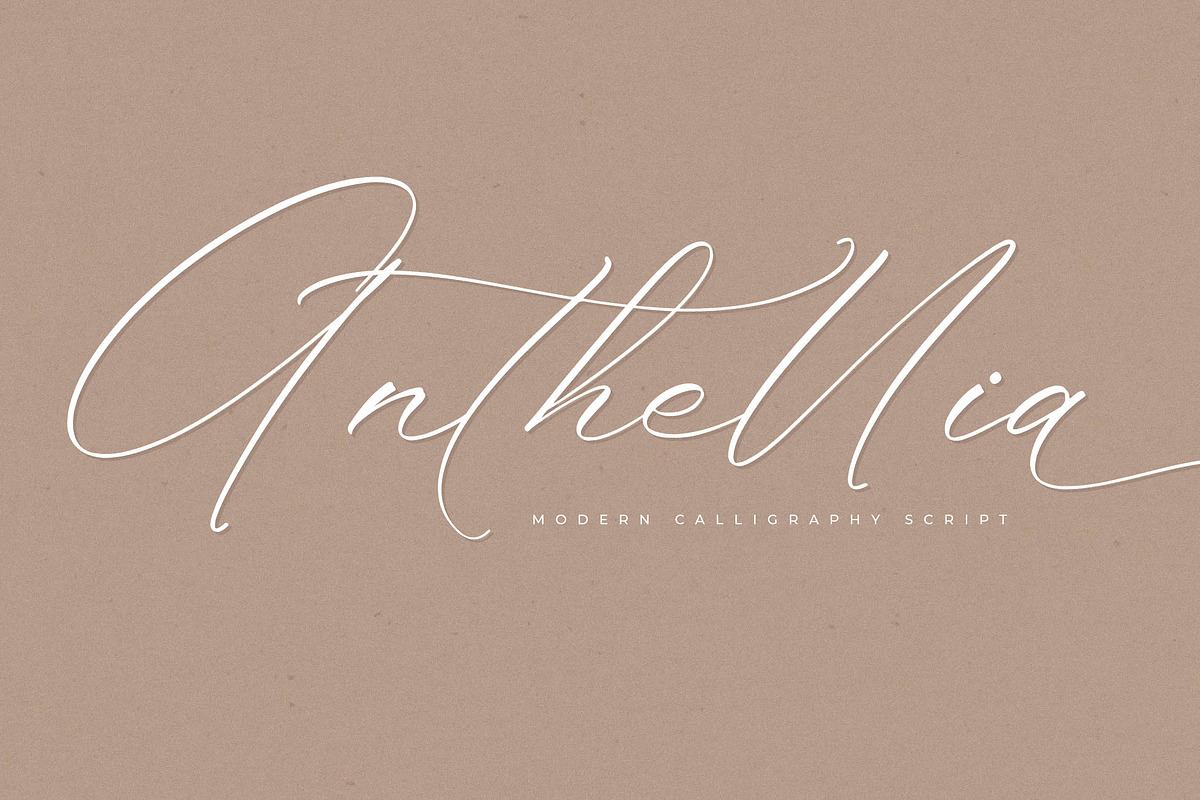
Anthellia Modern Calligraphy Script Font Free Download is a beautifully crafted typeface that combines elegant calligraphy with a fresh, contemporary flair. With its flowing lines, stylish swashes, and graceful letterforms, this font is perfect for wedding invitations, logos, branding, social media graphics, and any project that requires a refined, sophisticated touch.
Whether you’re creating romantic stationery, designing a chic logo, or crafting high-end branding, Anthellia brings timeless beauty and modern charm to your typography. It’s the ideal font for designers who value elegance and creativity in their work.